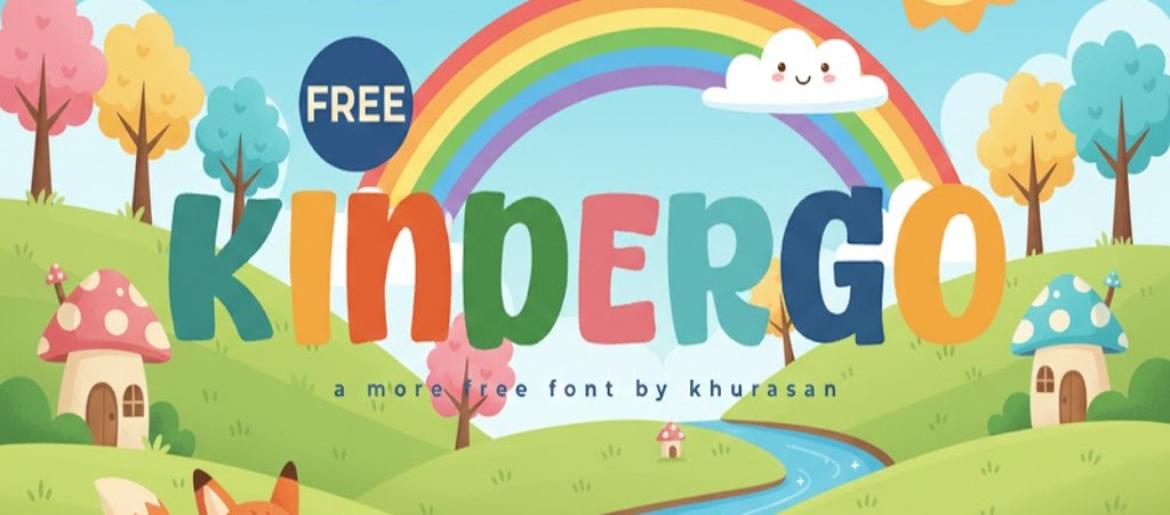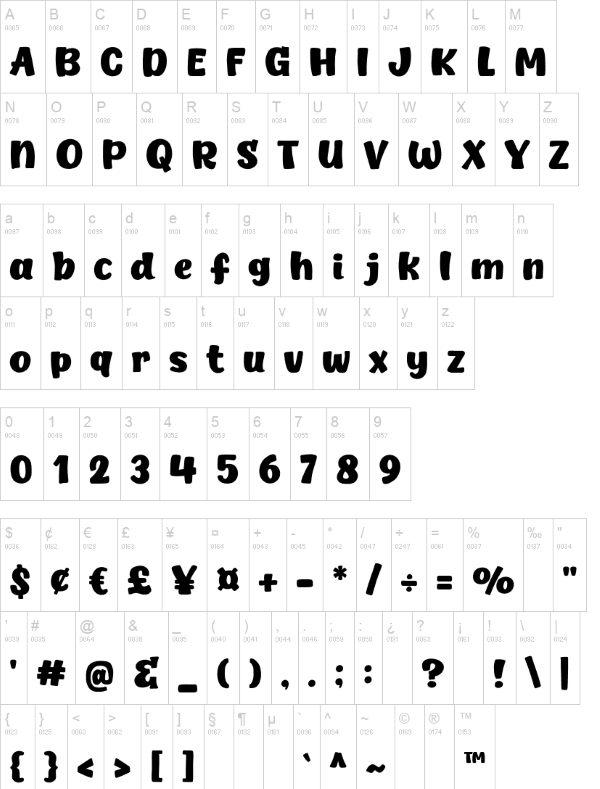
Kindergo Font
Kindergo Font brings a modern cartoon display style filled with cuteness and cheerful energy. Its playful letterforms and friendly proportions make it ideal for posters, logos, magazines, book covers, banners, and kids-focused designs. Kindergo adds a fun, youthful tone while staying clear and readable, helping creative projects feel lively, engaging, and visually delightful.
➤ Font Name: Kindergo
➤ Designer: Khurasan
➤ Style: Cartoon